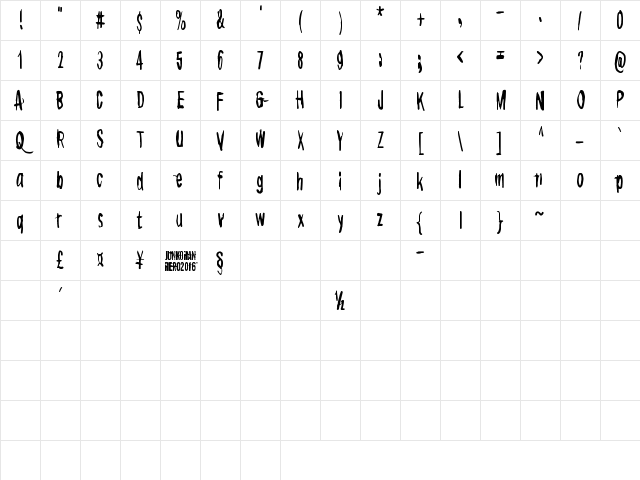
Overdose Regular
Complete Overdose Regular glyph index. Displaying only characters natively supported by Overdose Regular font.
Design Context for Overdose
Overdose is a composed and adaptable typeface that performs quietly and consistently across a wide range of design contexts.